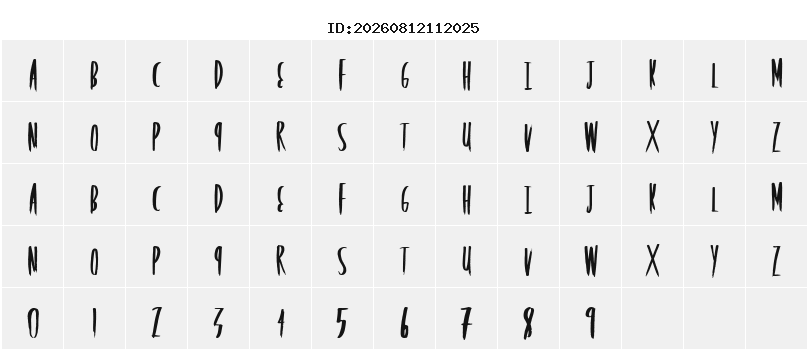
RockingPoster Preview
• Font Name: RockingPoster
• Designer: max infeld
• Description: rocking poster made in chico,california
About RockingPoster.ttf
RockingPoster.ttf is a modern, elegant sans-serif font designed for ultimate readability and visual harmony. Perfect for branding, headlines, web design, and print materials.